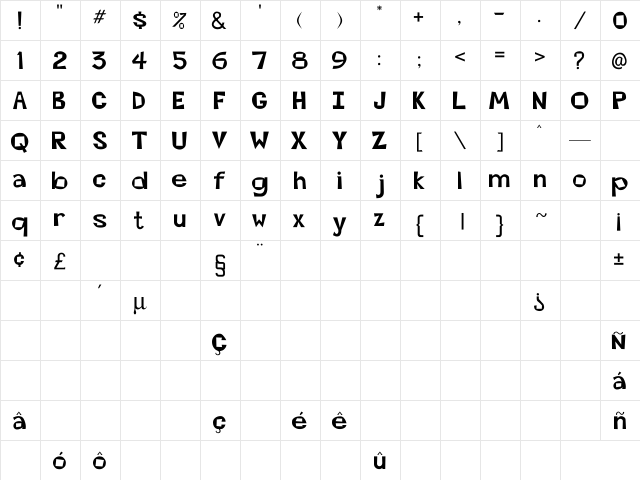
Beatsville Regu Regular
Design Context for Beatsville Regu Typeface
Beatsville Regu takes a measured approach to typography — its balanced proportions and neutral character make it a reliable workhorse for both digital and print work.